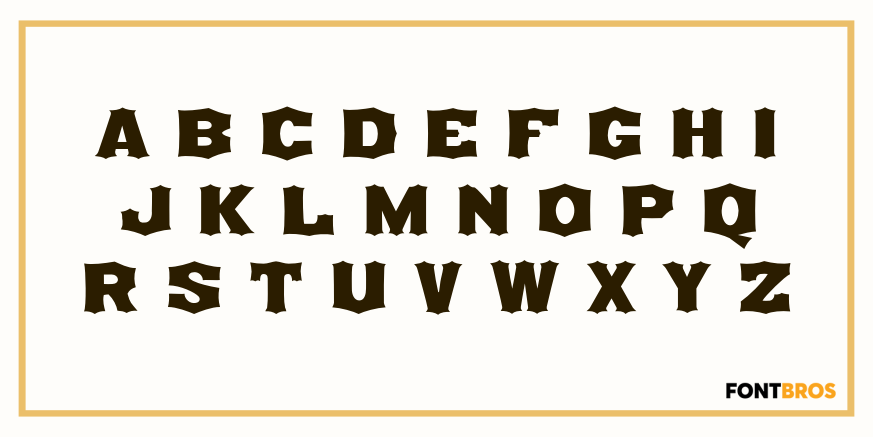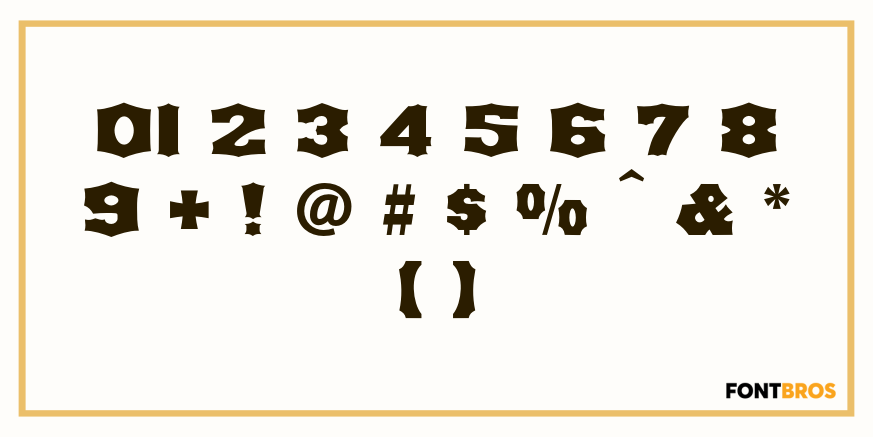
Houdini
Font Family by Solotype
Houdini was extemporized from the single word ?Houdini? on a lithographed poster for the magician. The original was a shaded outline like our Houdini Shaded font, but we felt that a solid version would be worthwhile too.
Like the companion font Houdini, the shaded version was created from the single word Houdini on an old lithographed poster for the famous magician. The original was hand-lettered by a litho lettering artist.